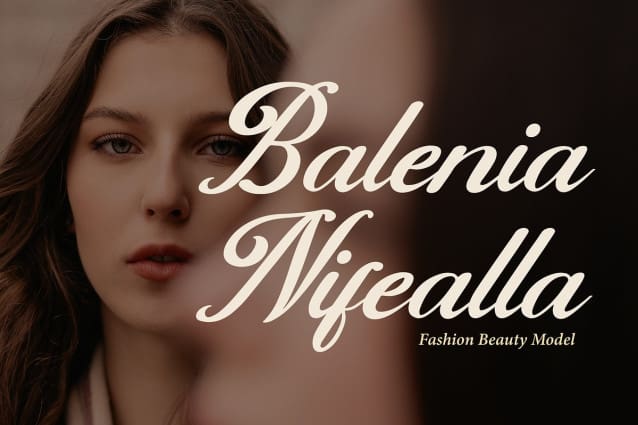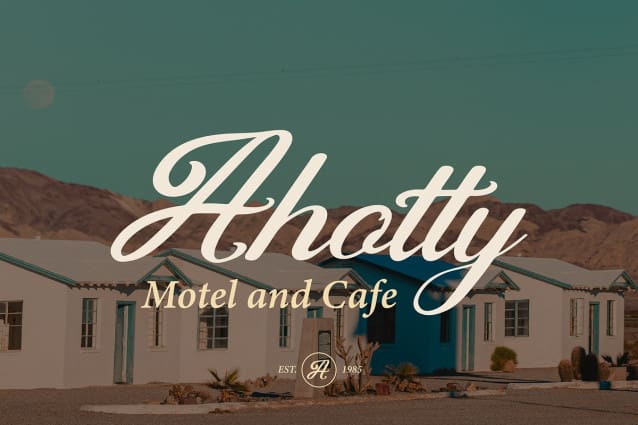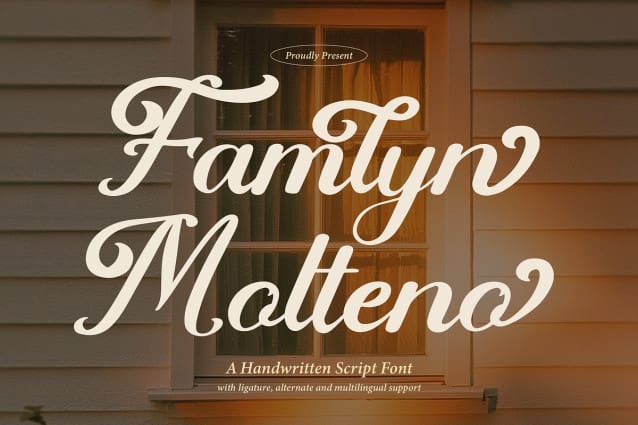
Famlyn Molteno Font
Famlyn Molteno Font | Handwritten Script, from Gracetypestudio, suitable for any projects such as: logos, branding projects, homeware designs, product packaging, mugs, quotes, posters, shopping bags, t-shirts, book covers, name card, invitation cards, greeting cards, label, photography, watermark, special events, and all your other lovely projects that need a Handwritten Script taste.